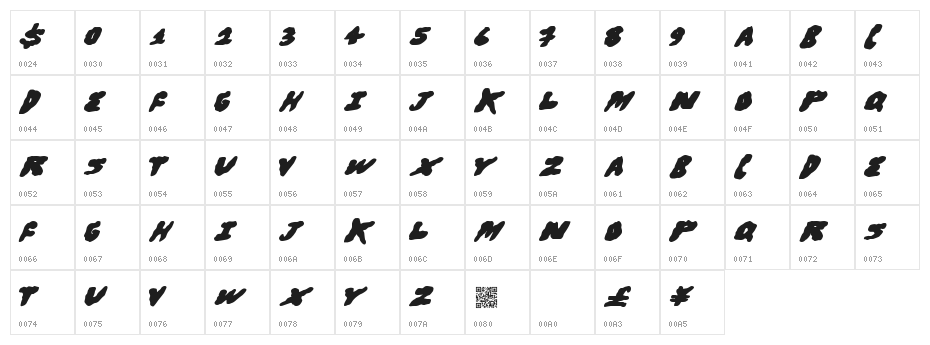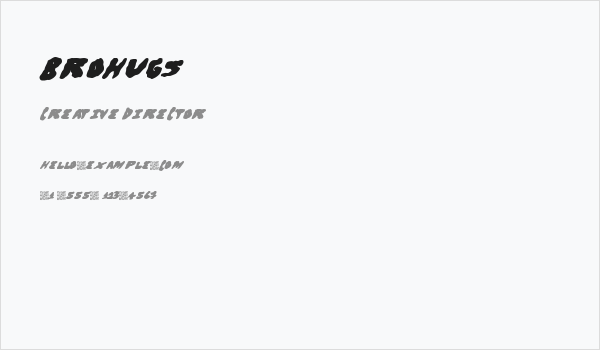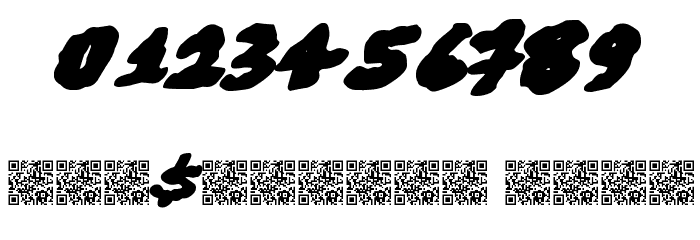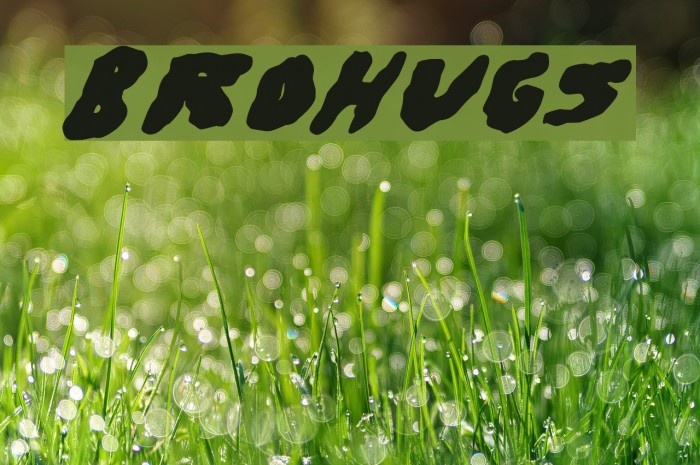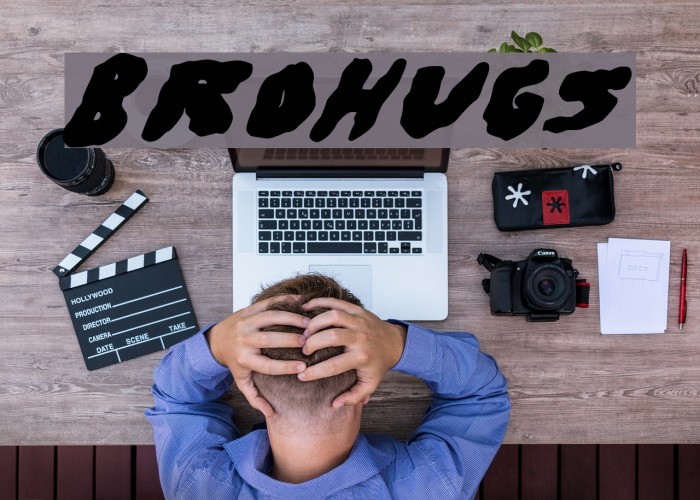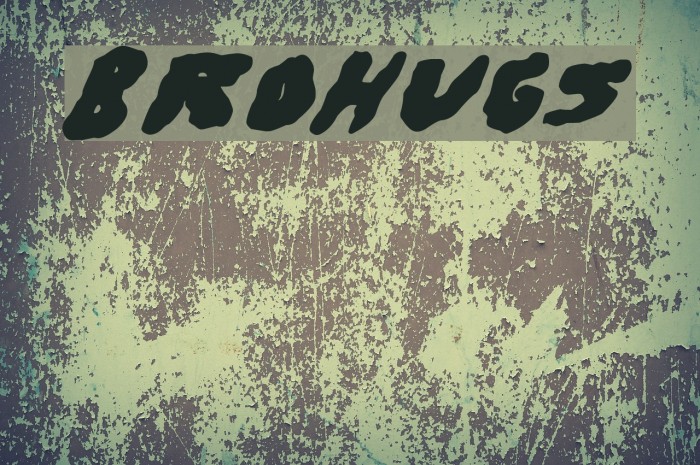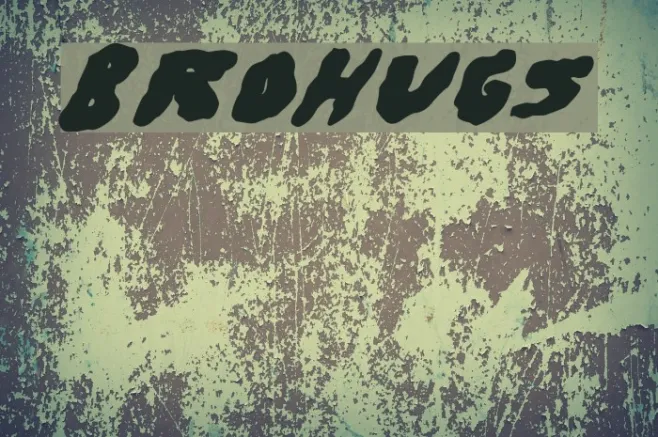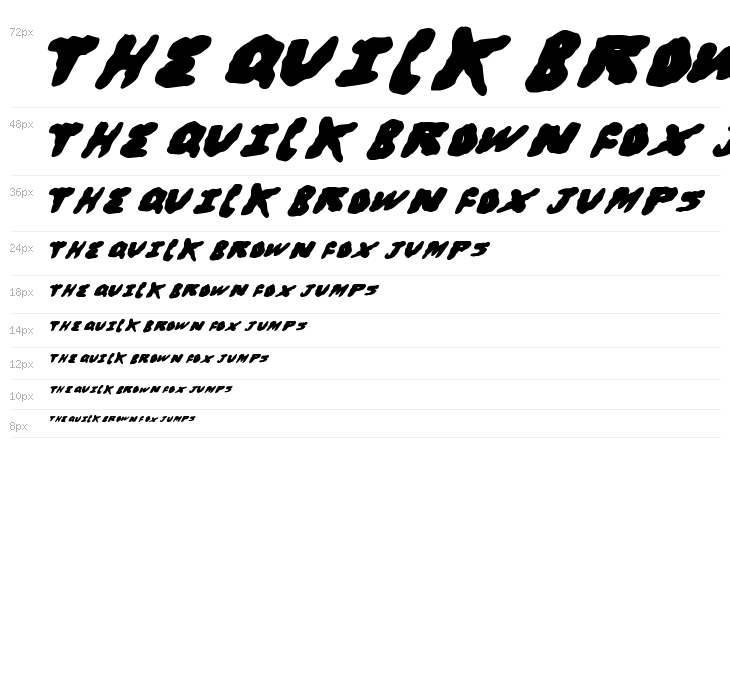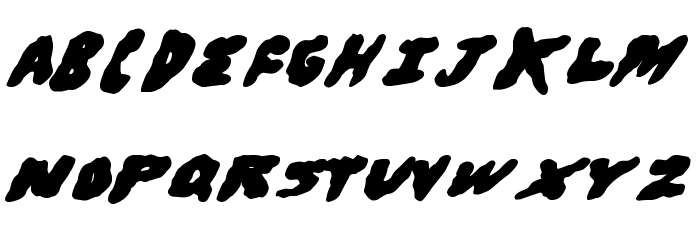
BroHugs Font
BroHugs Description
This font features a bold and dynamic script style with a playful and energetic feel. The characters are heavily weighted with a brush-like texture, giving them a lively and informal appearance. The strokes are thick and rounded, creating a sense of movement and fluidity. The uppercase and lowercase letters maintain a consistent style, with exaggerated curves and a slightly slanted orientation. The numbers and special characters follow the same design principles, ensuring a cohesive look across all elements. This font is ideal for projects that require a fun and engaging visual impact.
| Proposed Projects | Ideal for posters, greeting cards, social media graphics, and branding projects that require a lively and informal touch. |